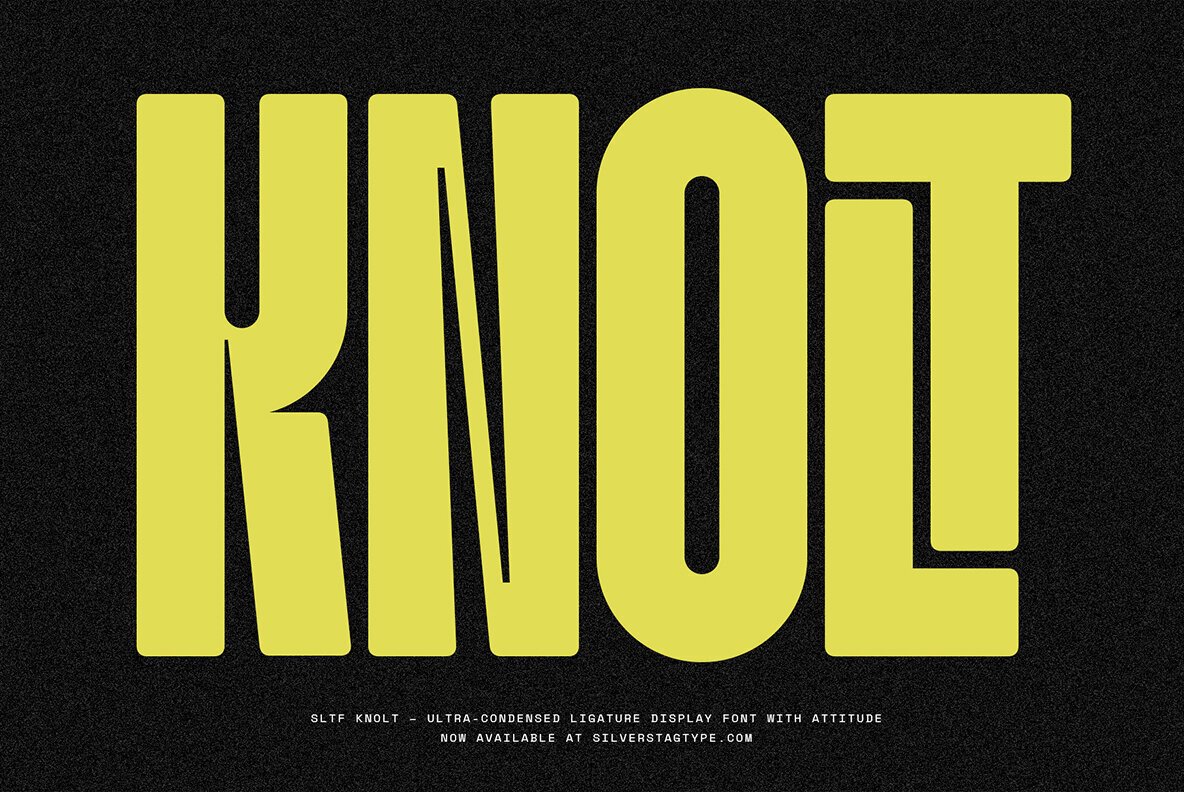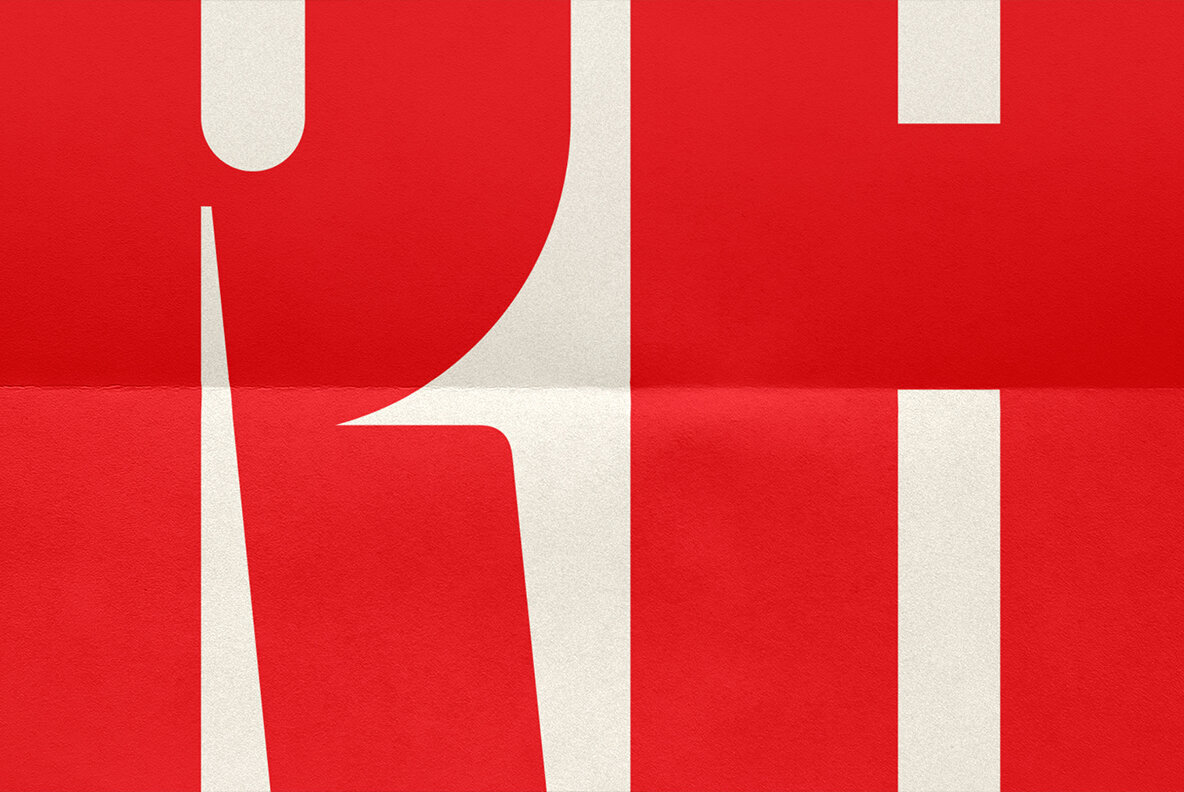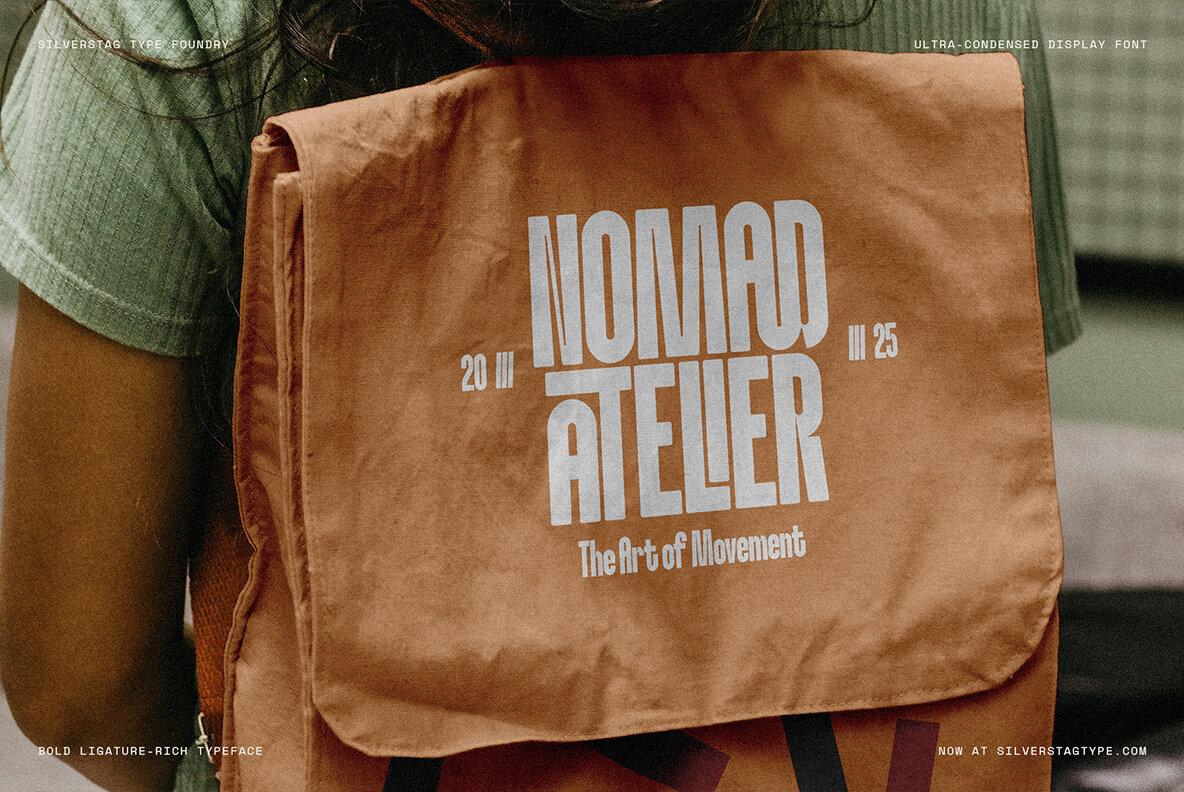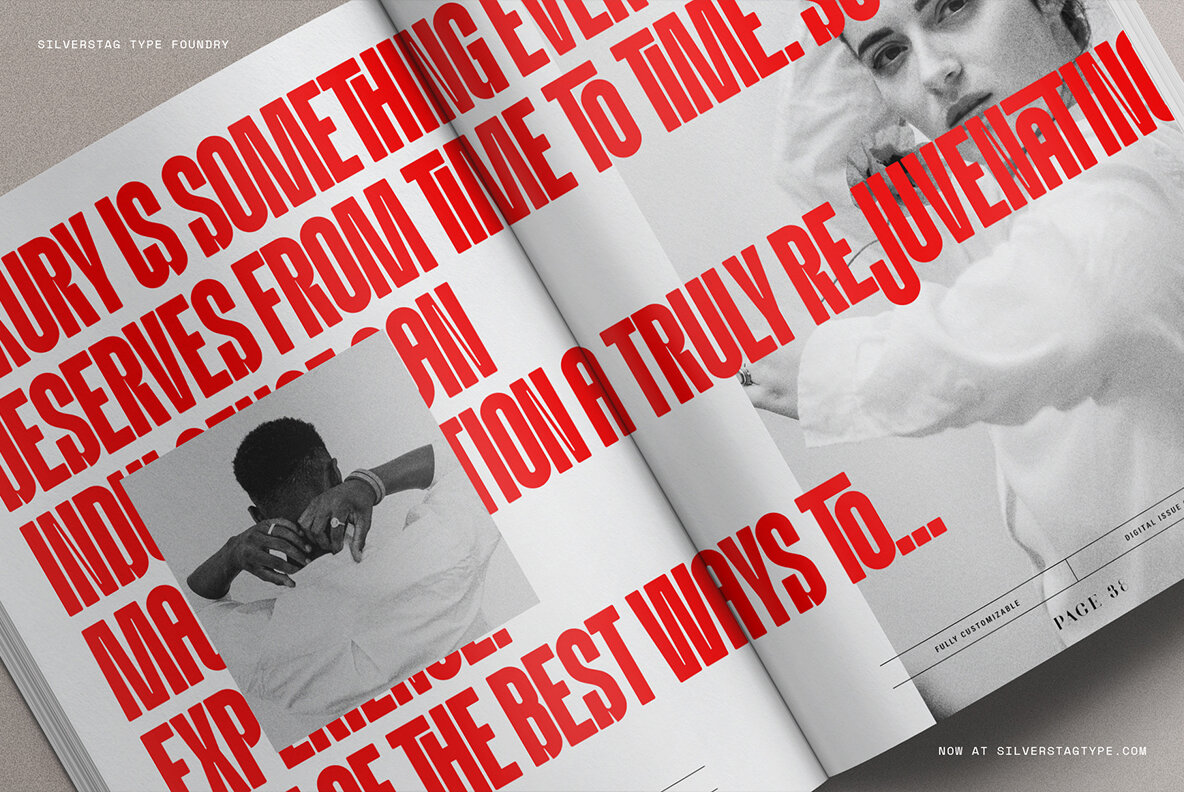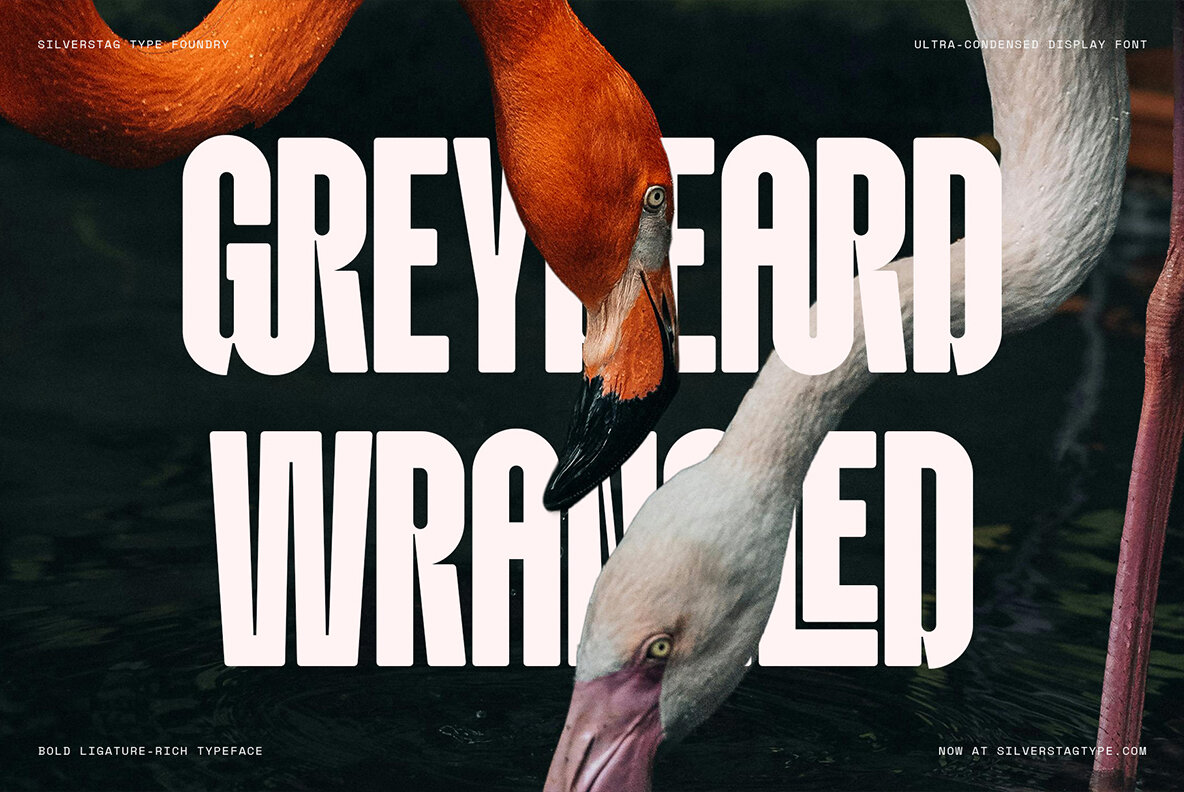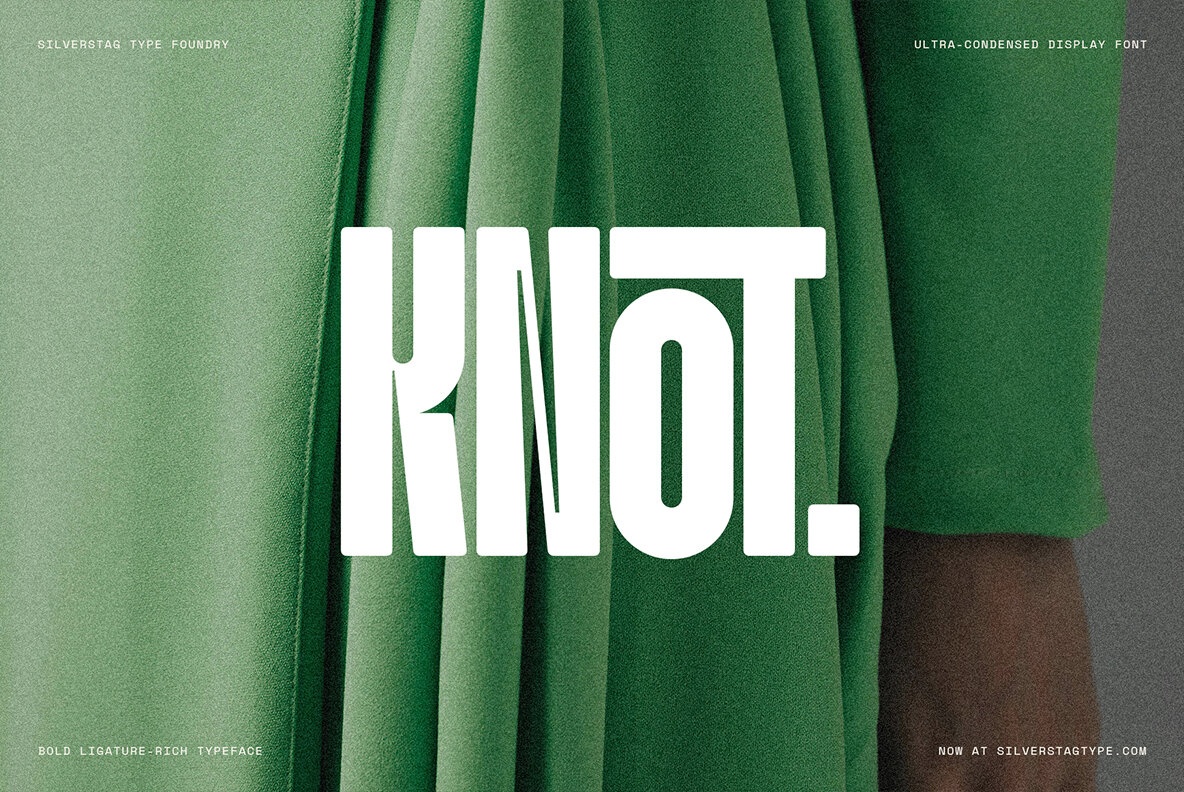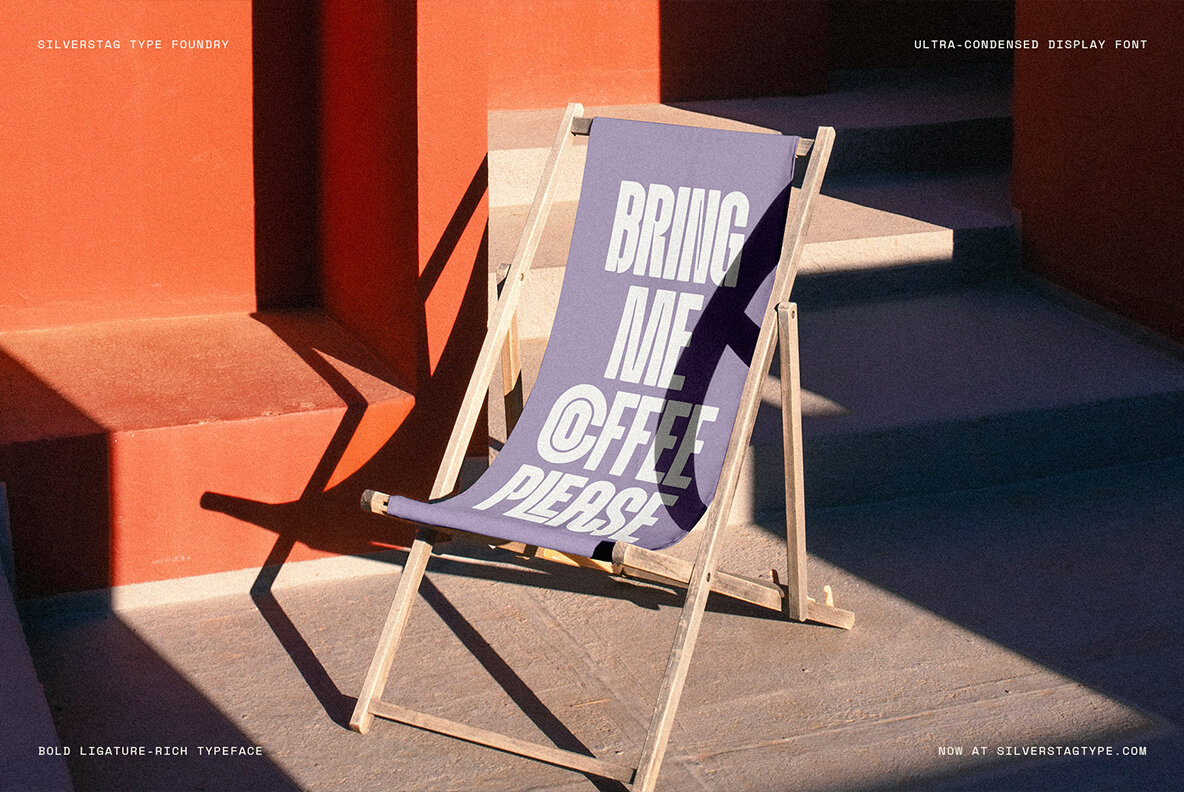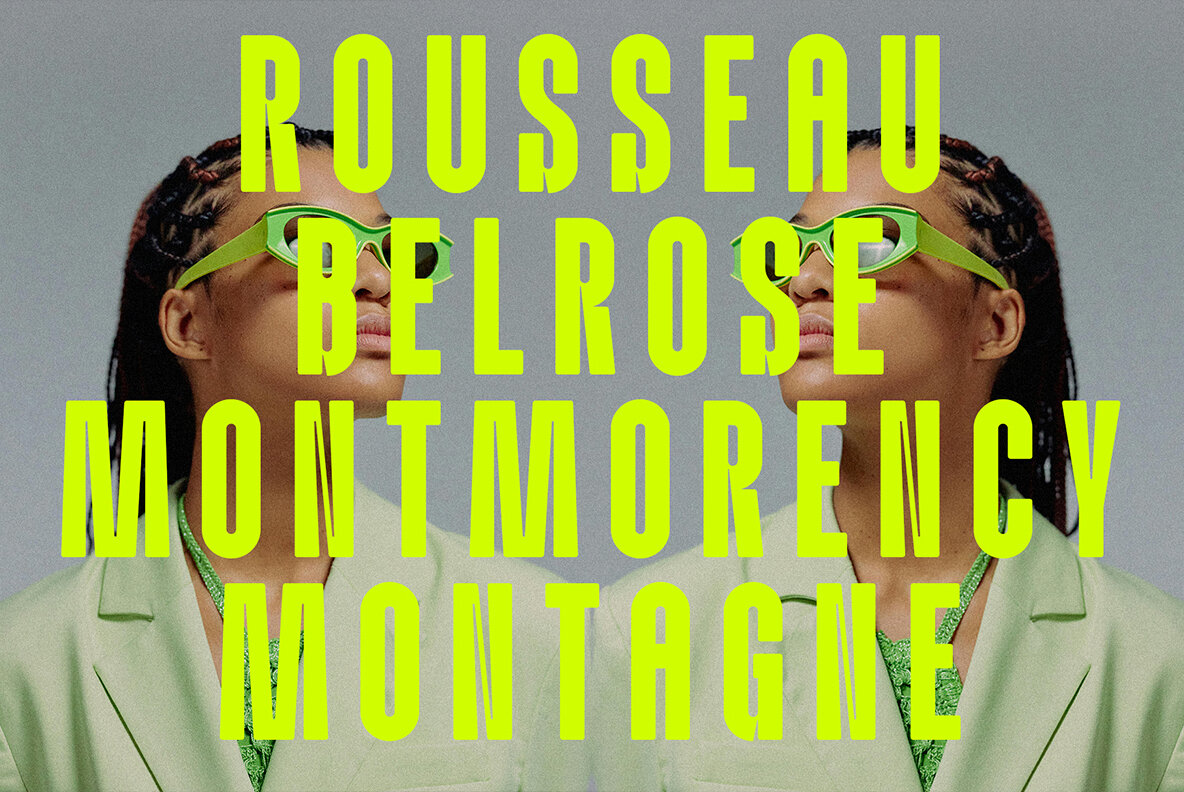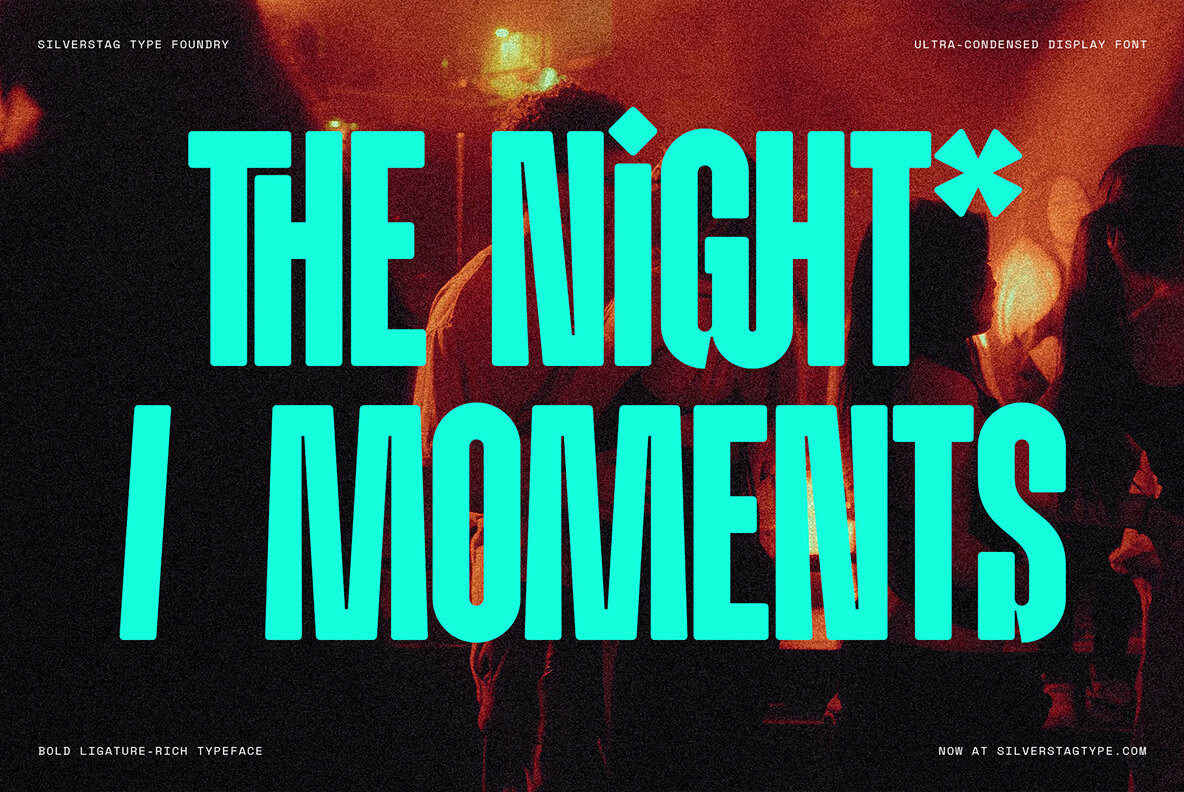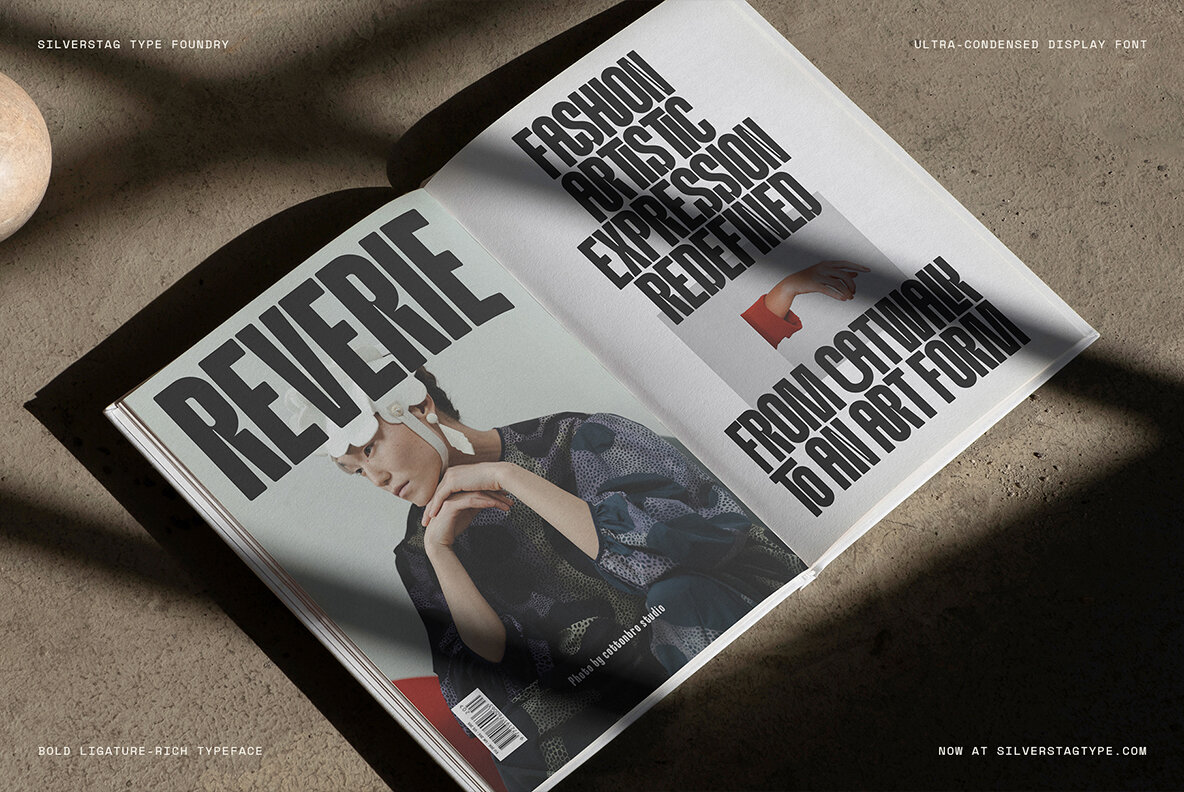
SLTF Knolt Font
SLTF KNOLT Regular
Meet SLTF Knolt, a sleek and sharply styled ultra-condensed font crafted for standout display work. With dramatic verticality, high contrast strokes, and edgy ink traps, Knolt delivers a punch of bold energy to your designs. From high-fashion headlines to striking packaging and edgy editorial layouts, this typeface is all about making an unforgettable impression. Every curve, corner, and ligature in Knolt has been carefully refined to maintain tight rhythm and a clean, impactful presence - especially at large sizes. The ultra-condensed letterforms allow for space-saving typography without sacrificing readability or flair. A curated selection of over 100 ligatures gives designers the freedom to experiment with stylish and unexpected combinations. Knolt works beautifully in bold logos, contemporary posters, album art, and lifestyle-driven branding. Whether you’re creating digital content or printed materials, its sharp design and confident tone will elevate any concept. It includes a full uppercase and lowercase set, punctuation, multilingual support for 90+ languages, and is provided in both desktop and webfont formats.